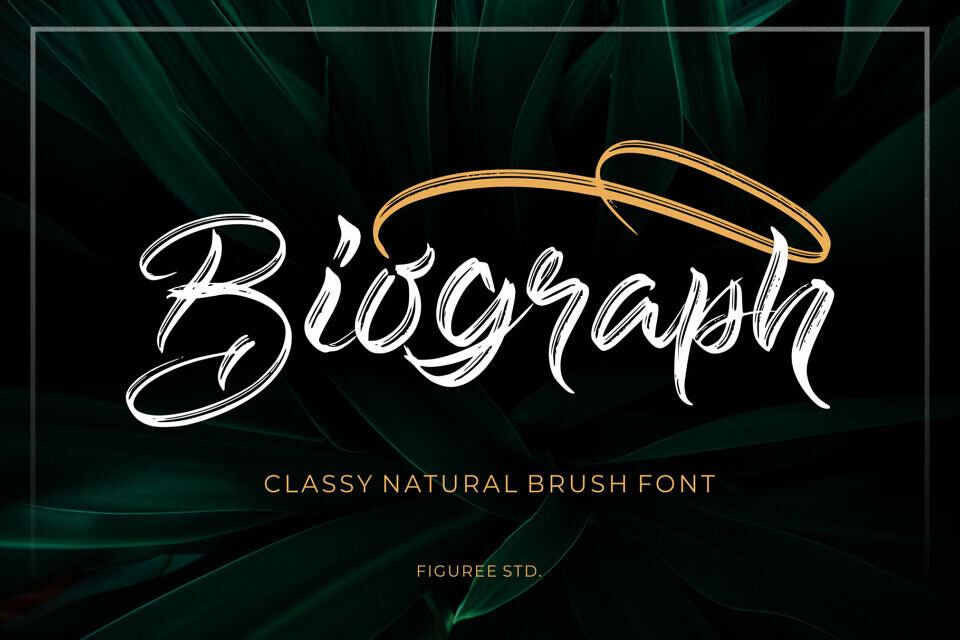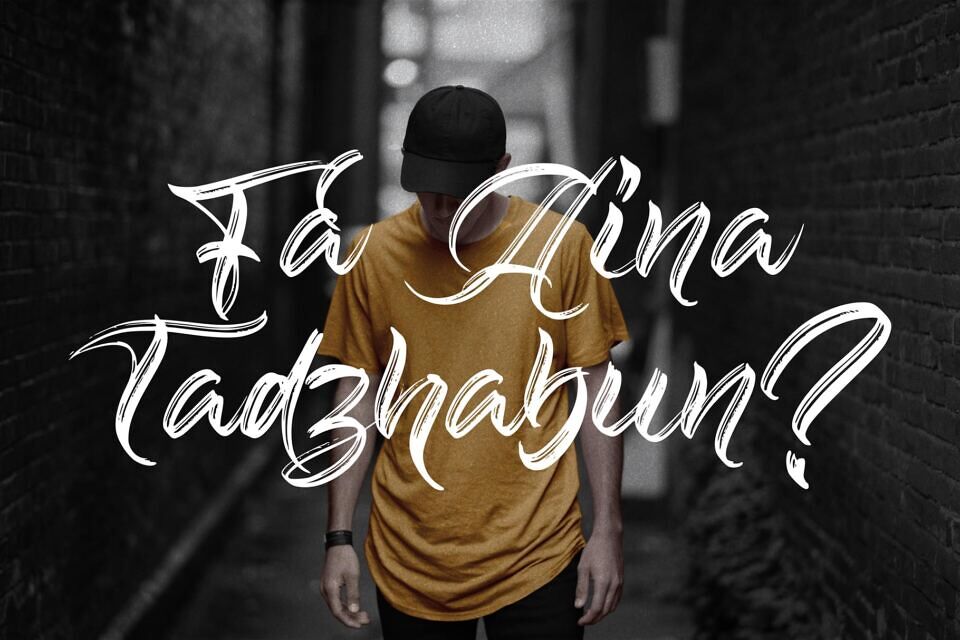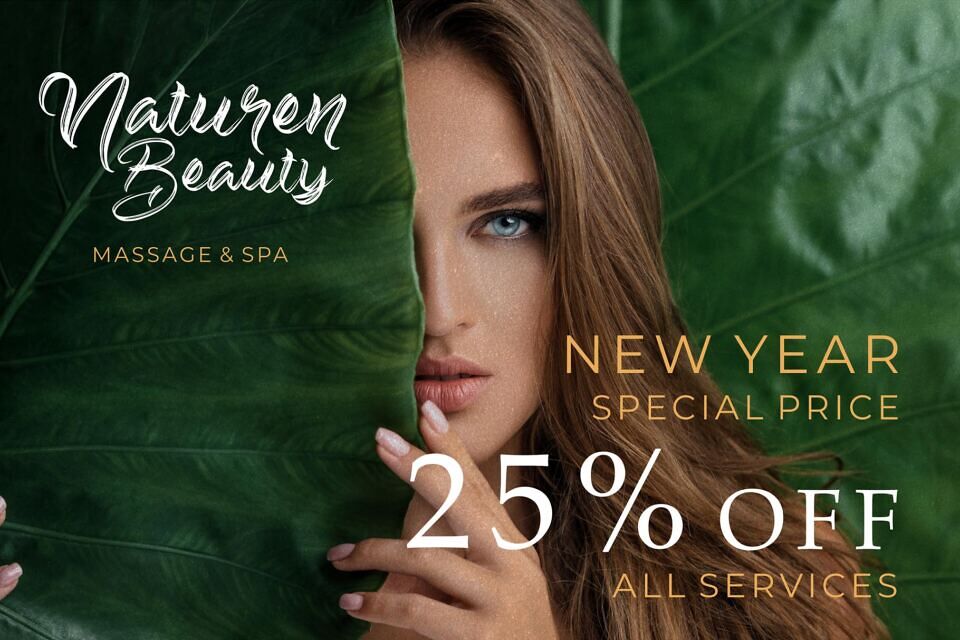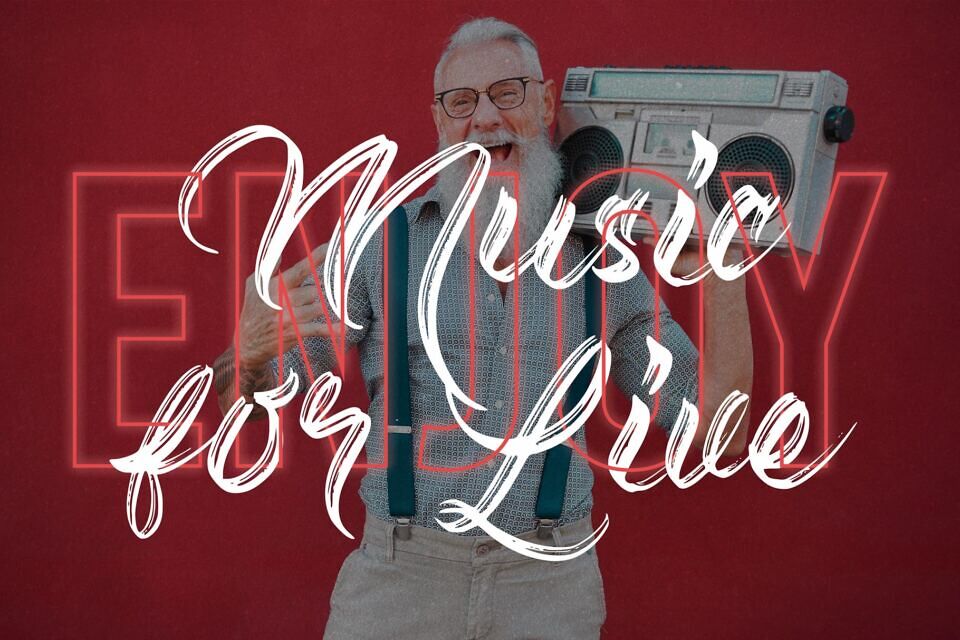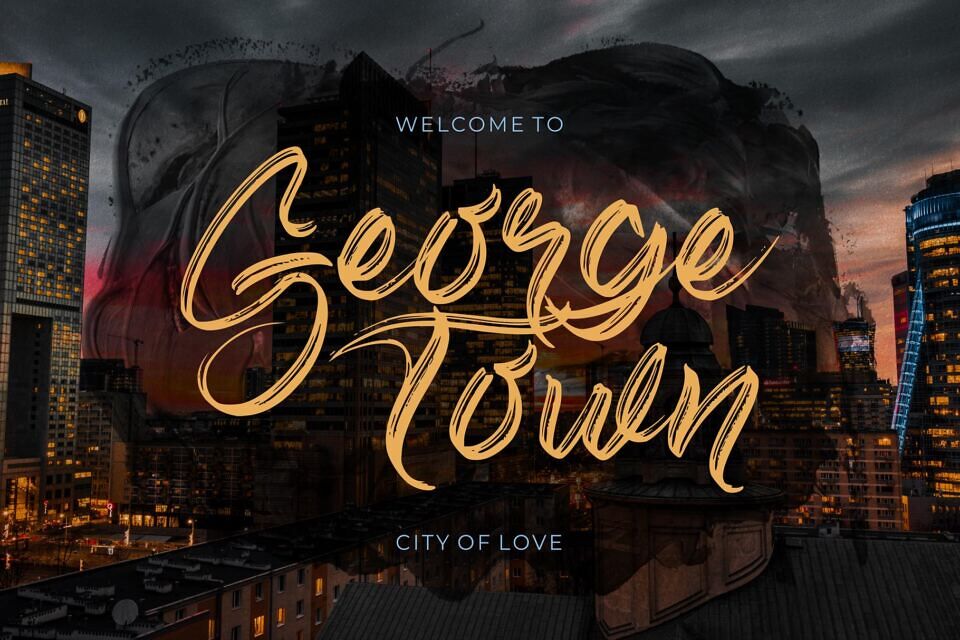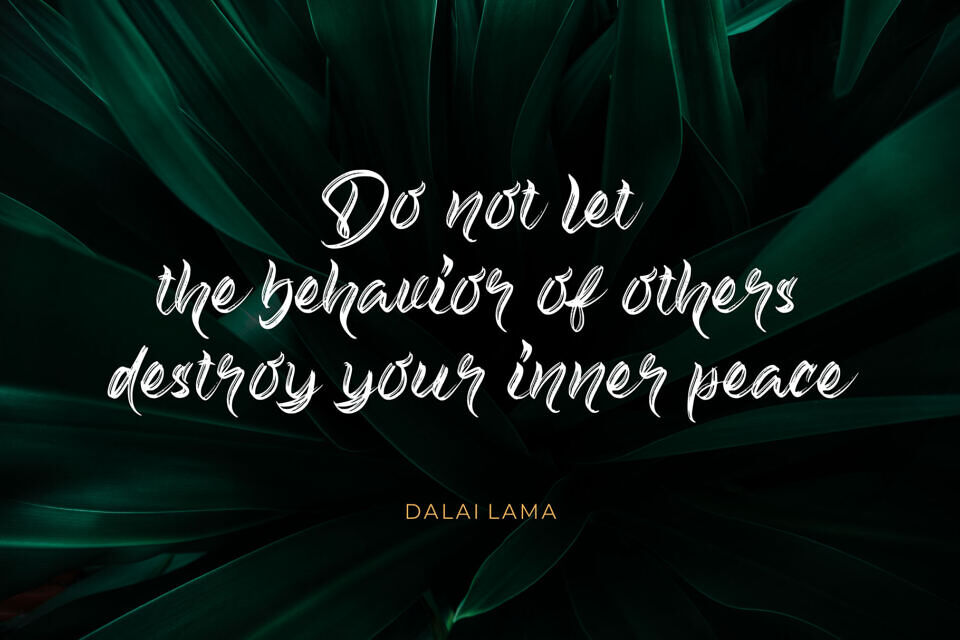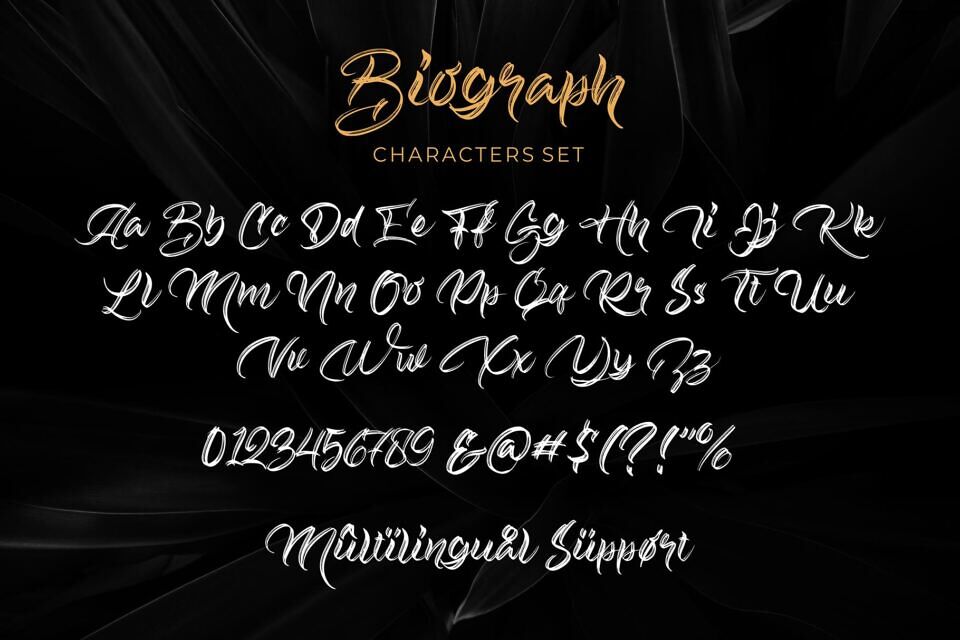
The Biograph is strong hand-drawn brush font that combines attractive curves with a fresh urban edge. Unleash the elegance of a meticulously crafted brush font, designed to instantly elevate your visual identity.
Perfect for adding a touch of captivating artistry to logo designs, brand imagery, hand-lettered quotes, product packaging, merchandise labeling, eye-catching social media posts, or as a unique website font. Its stylish strokes and expressive character will lend an undeniable charm to any project.